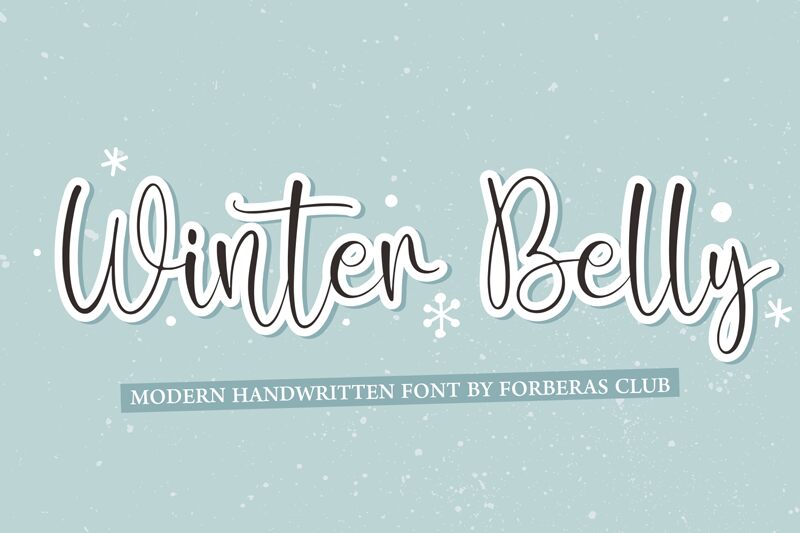
Winter Belly font by Forberas Club is a stunning handwritten typeface with cursive, elegant, and flowing letters. The characters are interconnected in a way that gives them whimsical shapes with smooth curves and moderate contrast. The light alphabet characters have an overall casual elegance.
Use Winter Belly to bring a rare softness to personal & commercial designs including merchandise, packaging, branding, book covers, and apparel products. Other ideal use cases for the free font include logo designs as well as social media visuals.